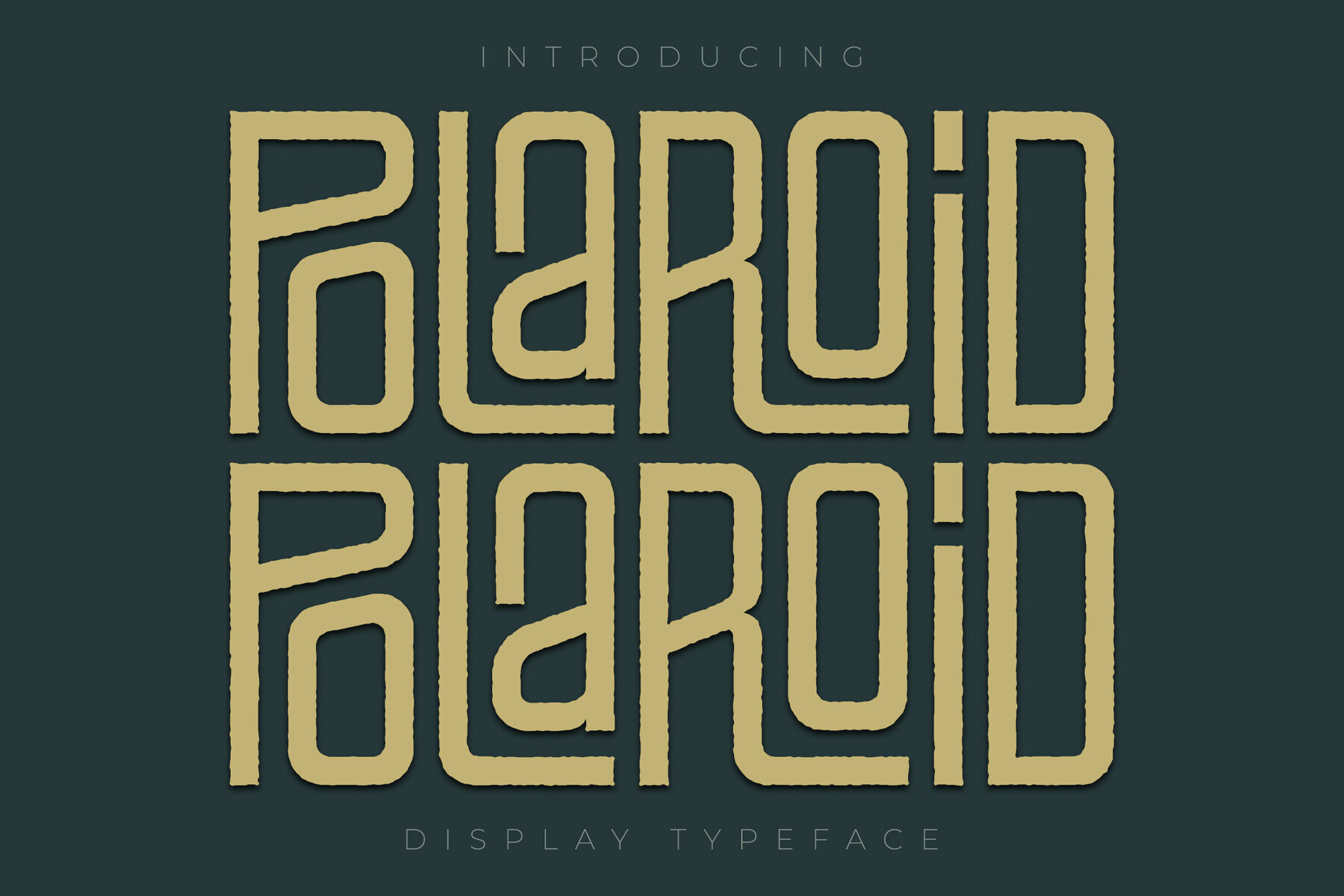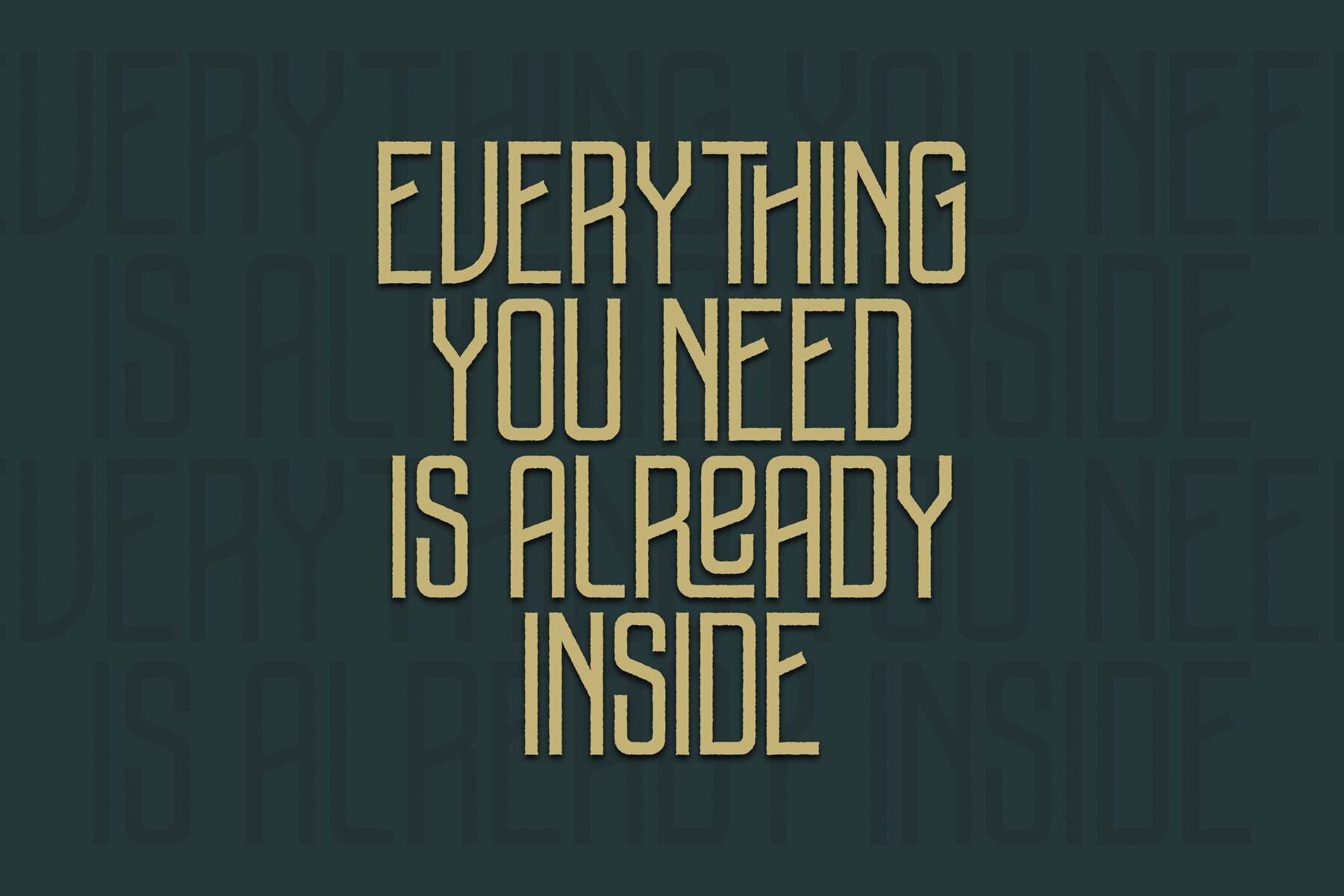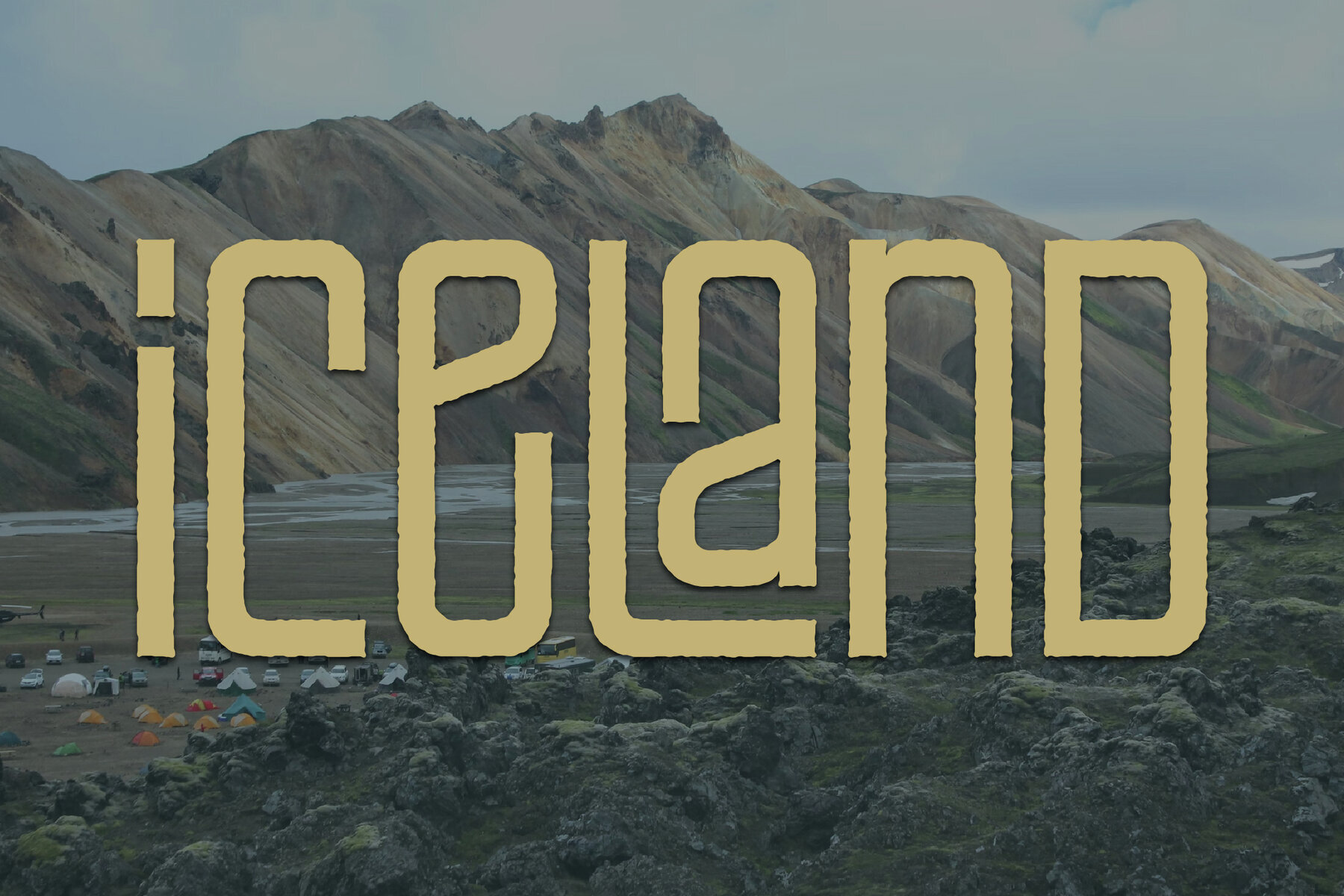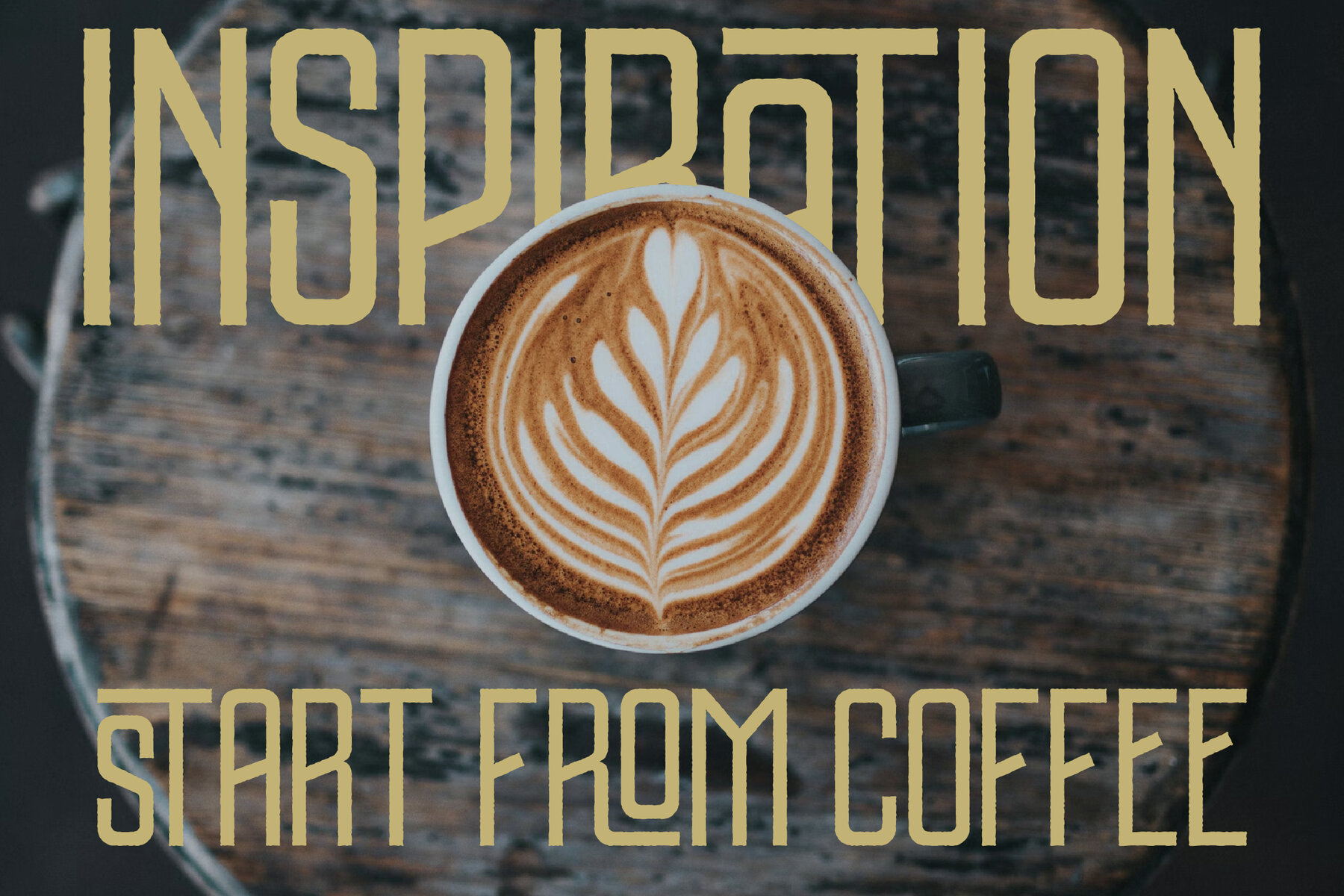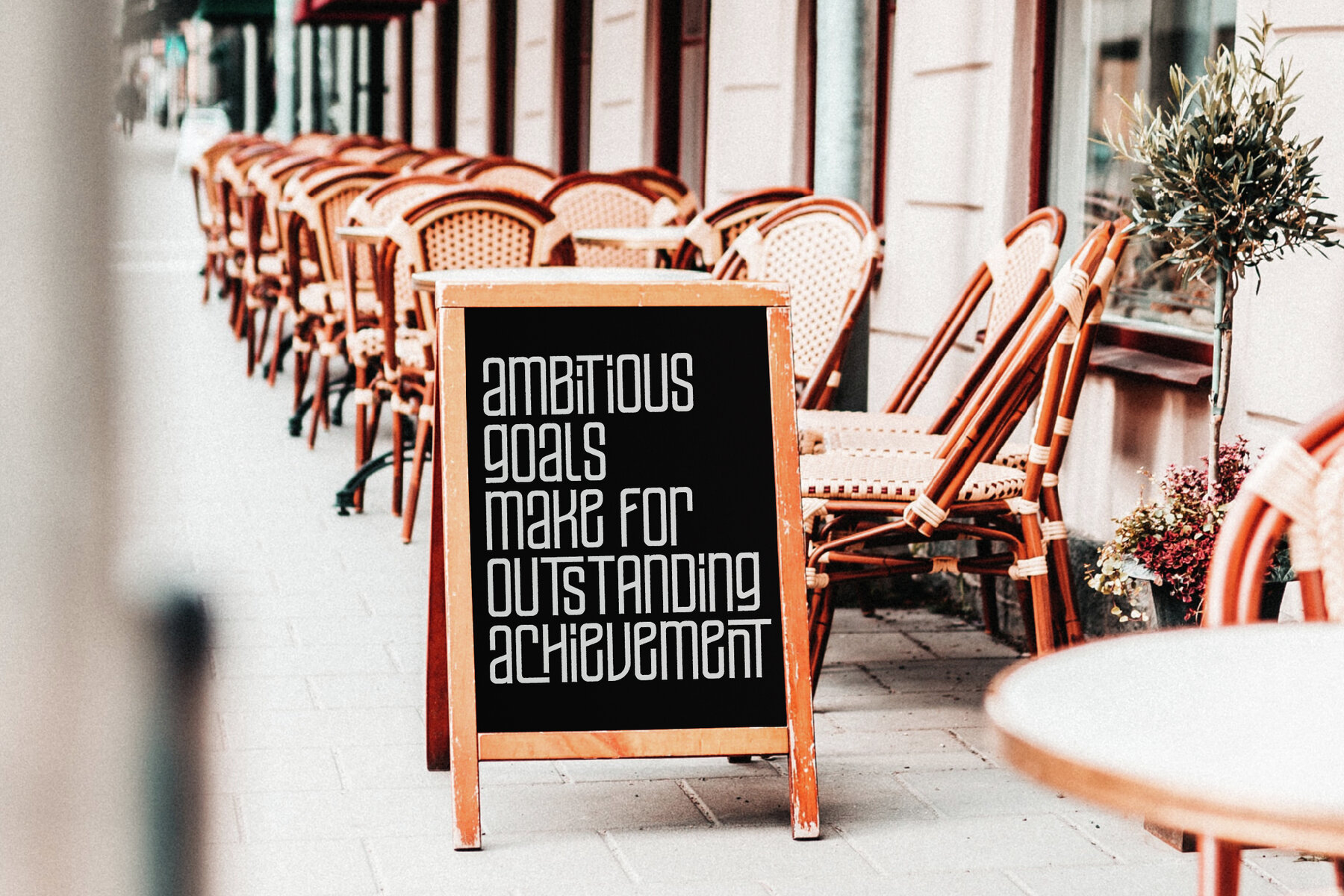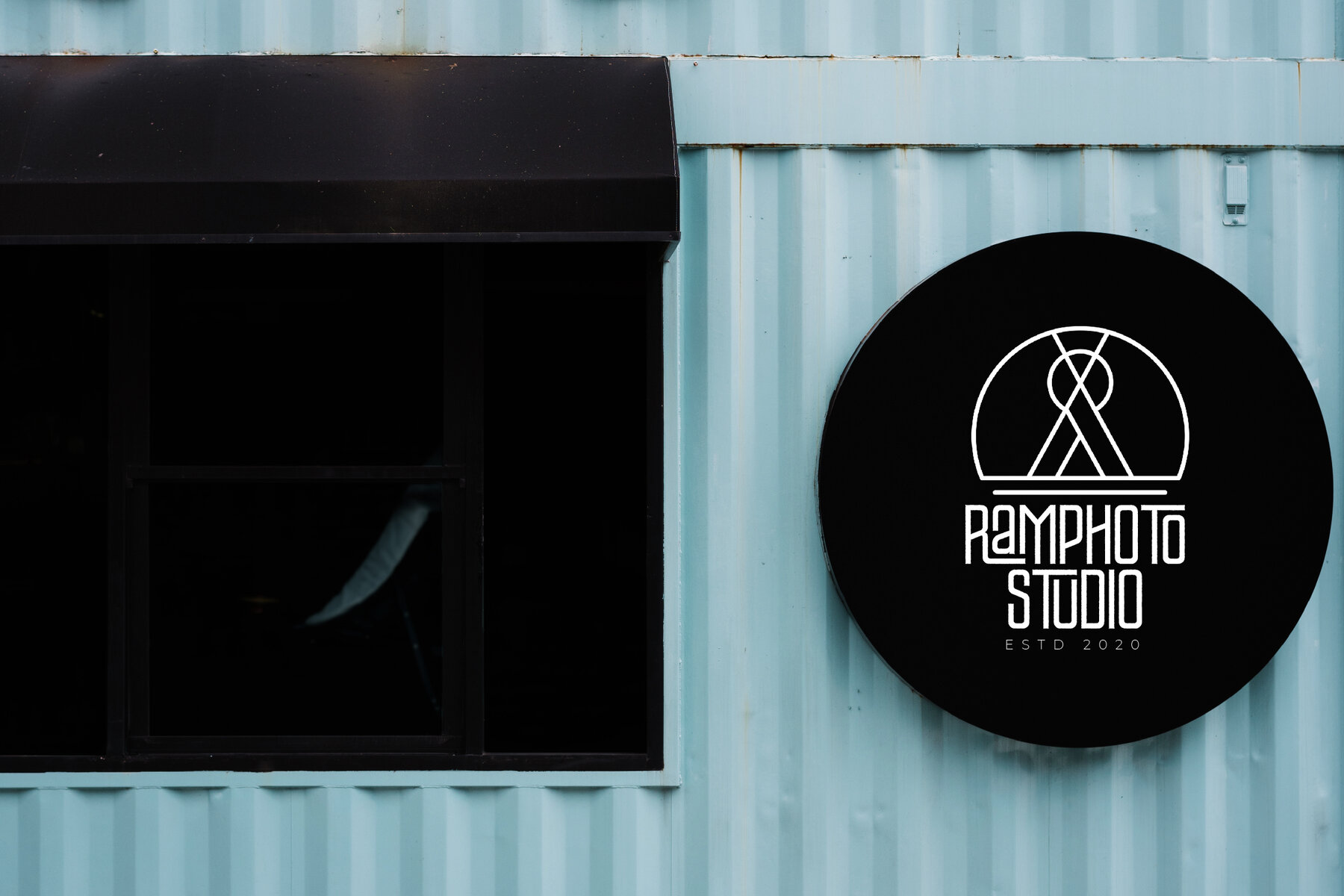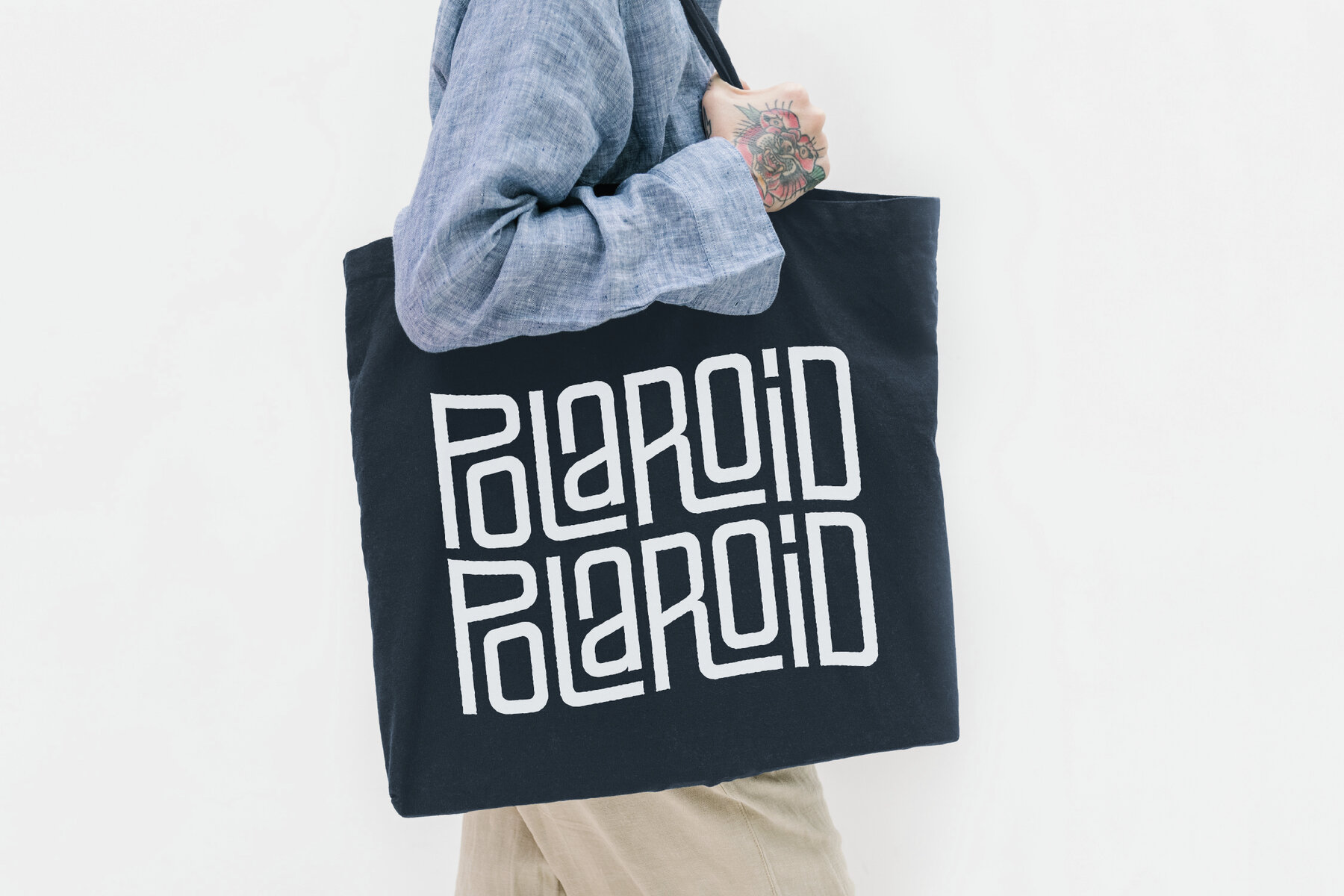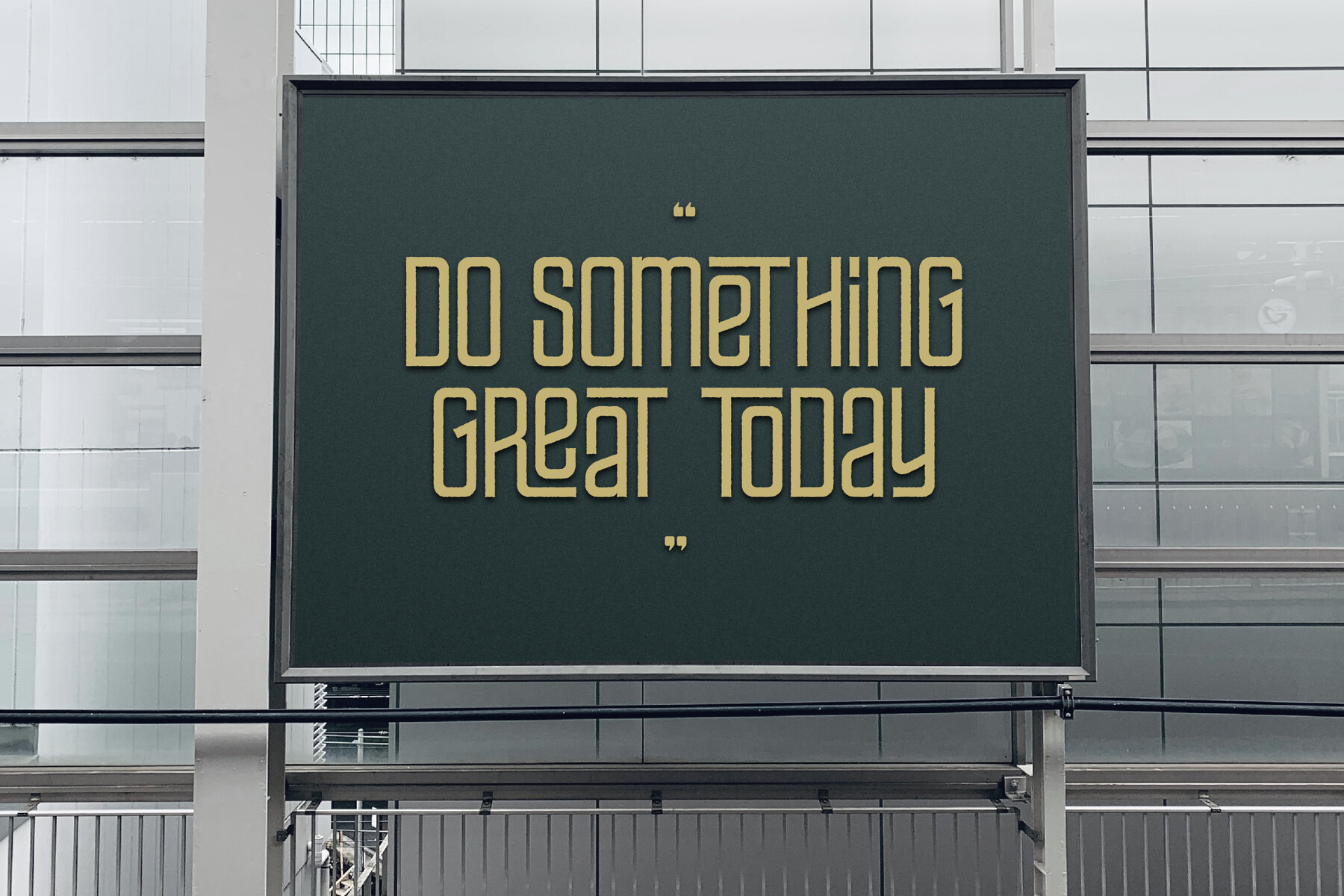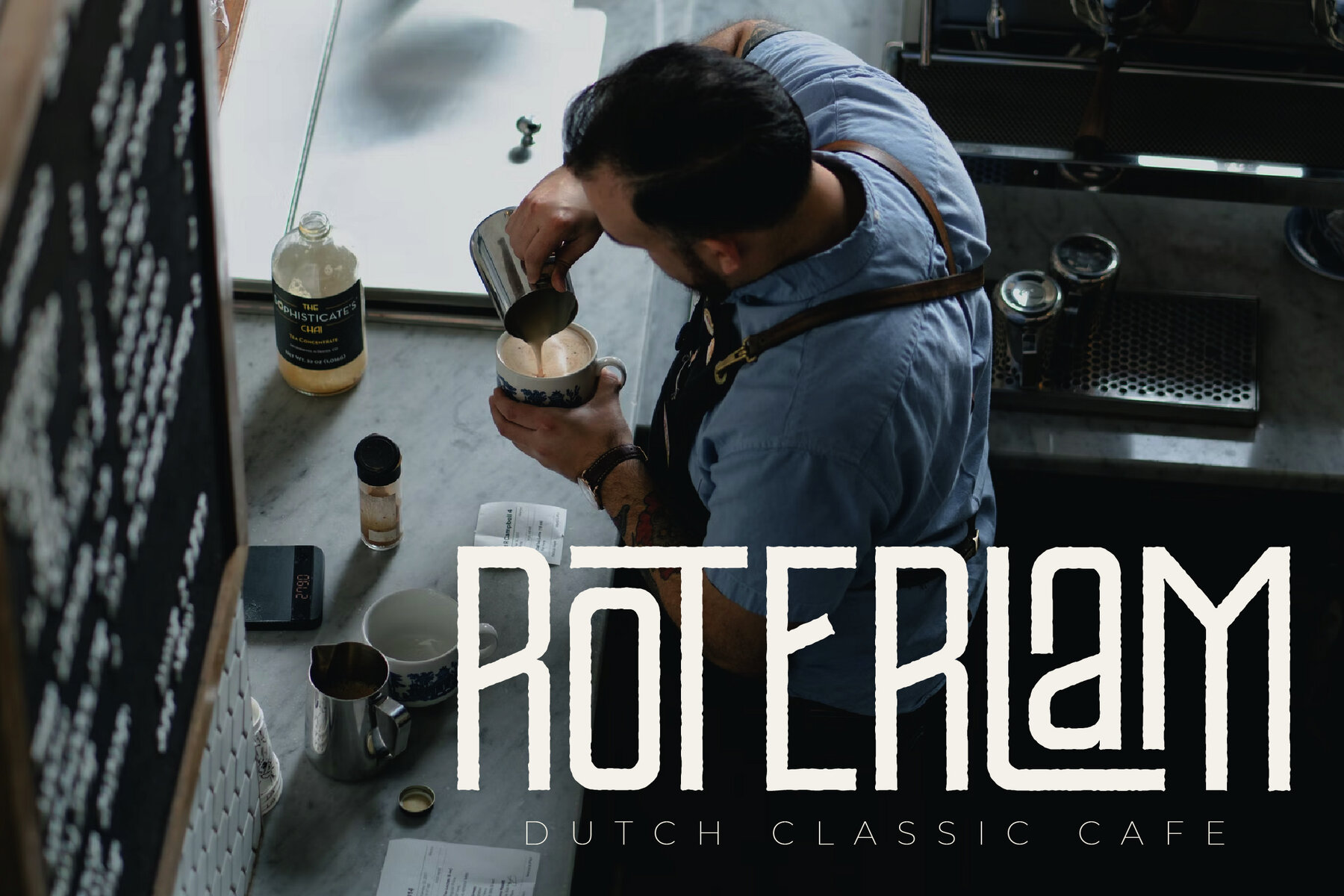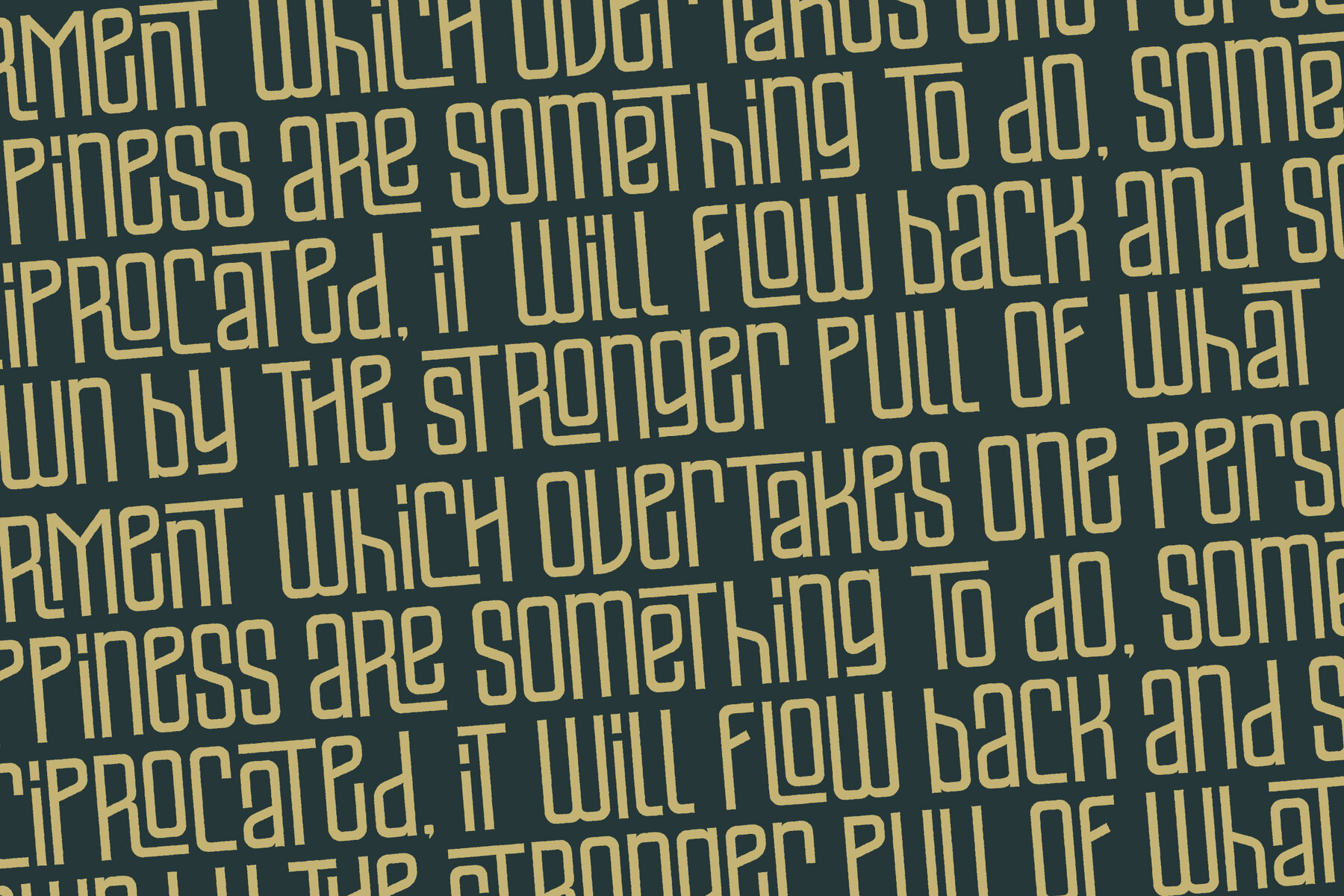
POLAROID Font
Introducing the Polaroid Typeface by Storytype Studio, where modern sophistication meets timeless elegance. This serif typeface is designed to elevate your brand with its unique style and modern flair. Versatile and captivating, Polaroid is ideal for crafting an elegant logo, designing a compelling book or movie title, or enhancing the identity of a luxury fashion brand or magazine. Infuse your projects with a touch of luxury, be it in clothing lines, inspiring quotes, and more.Polaroid Typeface